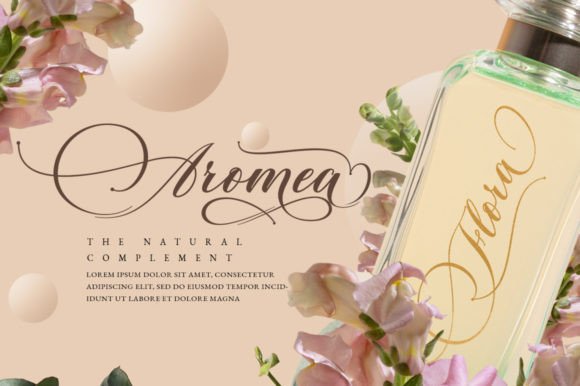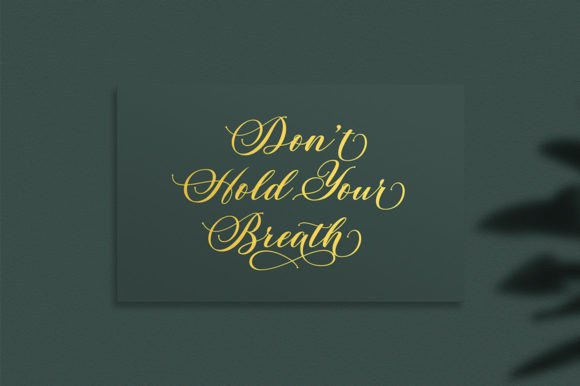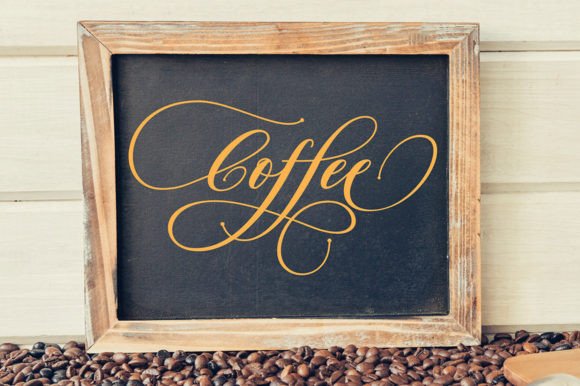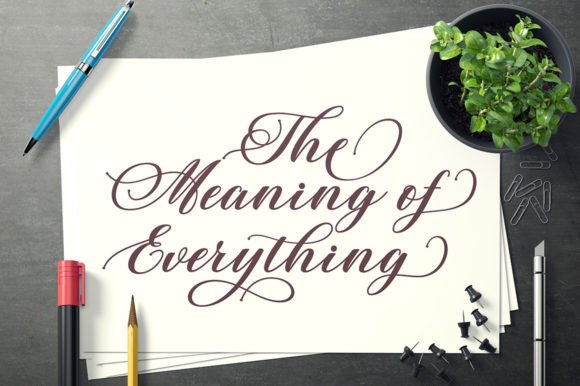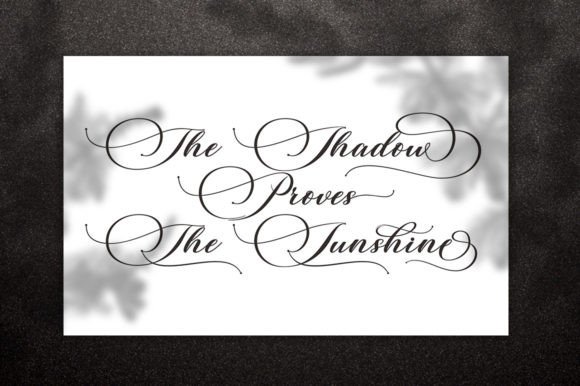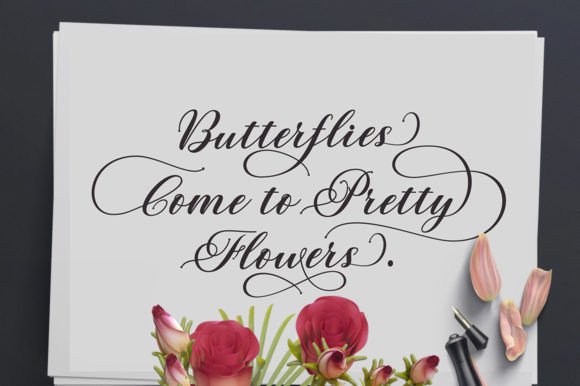
Auriga Font: Elevate Your Designs with Timeless Elegance
In the world of typography, few fonts capture the essence of classic beauty and sophistication as effortlessly as Auriga. This stunning calligraphic script font is a masterclass in elegance, with sweeping curves and intricate flourishes that evoke a sense of refinement and luxury. Whether you’re a designer, crafter, or simply someone who appreciates the art of beautiful writing, Auriga is a font that is sure to captivate and inspire.
The Beauty of Auriga
Auriga’s delicate strokes and flowing lines are a hallmark of its unique charm. This font is perfect for designs that require a touch of sophistication, such as invitations, formal documents, and other high-end applications. With Auriga, you can add a level of refinement and poise to your work that is hard to match with other fonts. Whether you’re creating wedding invitations, luxury branding, or simply want to add a touch of elegance to your digital designs, Auriga is the perfect choice.
PUA Encoding: Unlocking the Full Potential of Auriga
One of the standout features of Auriga is its PUA (Private Use Area) encoding. This means that you can access all the glyphs and ligatures with ease, giving you unparalleled creative control over your designs. With PUA encoding, you can effortlessly navigate the font’s extensive character set, including swashes, alternates, and other special characters. This level of flexibility makes Auriga an incredibly versatile font that can be tailored to suit a wide range of design applications.
Design Applications for Auriga
Auriga’s versatility and elegance make it an excellent choice for a variety of design applications. Here are just a few ideas to get you started:
- Wedding Invitations: Add a touch of romance and sophistication to your wedding invitations with Auriga’s flowing script.
- Luxury Branding: Elevate your luxury brand with Auriga’s refined and elegant typography.
- Formal Documents: Use Auriga to add a level of professionalism and sophistication to formal documents, such as certificates, diplomas, and more.
- Digital Designs: Add a touch of elegance to your digital designs, including social media graphics, blog headers, and more.
Why Choose Auriga?
With so many fonts available, why choose Auriga? Here are just a few reasons why designers and crafters are falling in love with this stunning script font:
- Timeless Elegance: Auriga’s classic beauty ensures that your designs will never go out of style.
- Versatility: With PUA encoding and a wide range of glyphs and ligatures, Auriga can be tailored to suit a wide range of design applications.
- Ease of Use: Auriga is incredibly easy to use, even for those with limited design experience.
In conclusion, Auriga is a truly exceptional font that offers a unique combination of elegance, sophistication, and versatility. Whether you’re a designer, crafter, or simply someone who appreciates the art of beautiful writing, Auriga is a font that is sure to captivate and inspire. With its PUA encoding, delicate strokes, and flowing lines, this font is perfect for a wide range of design applications. So why wait? Discover the beauty of Auriga for yourself and elevate your designs to new heights of elegance and refinement.